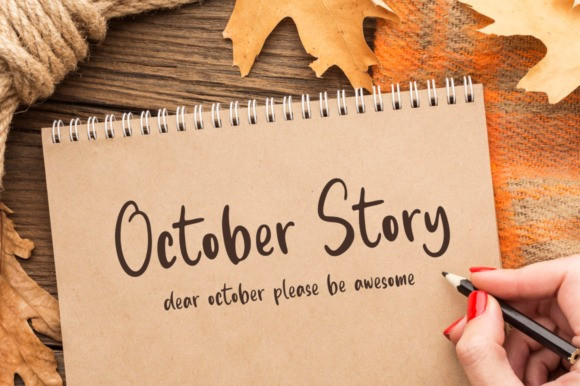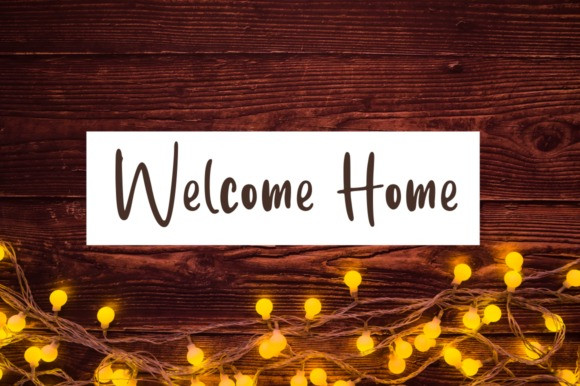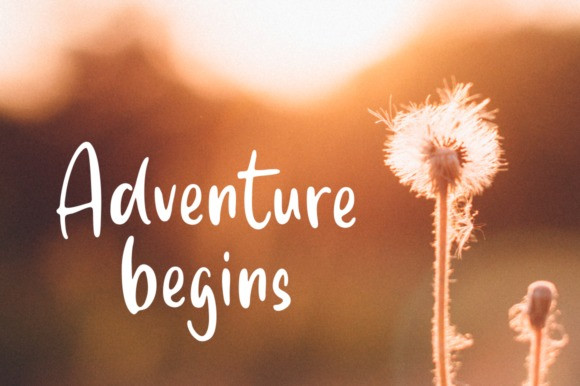
Franceur Display Font
Franceur is a simple and neat lettered display font. Add this font to your creative ideas and notice how it will make them stand out!